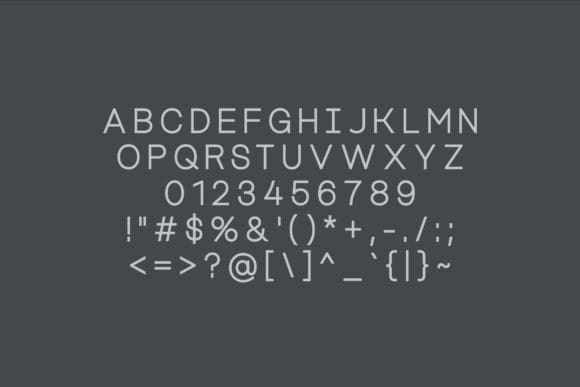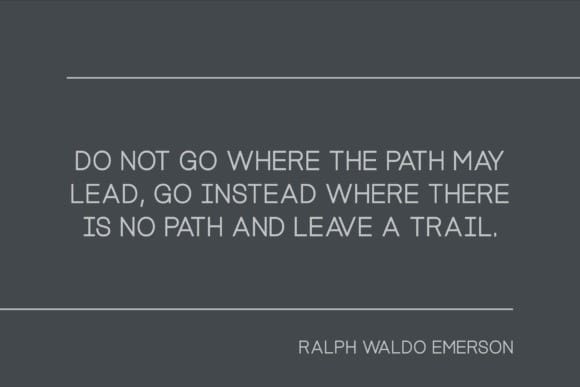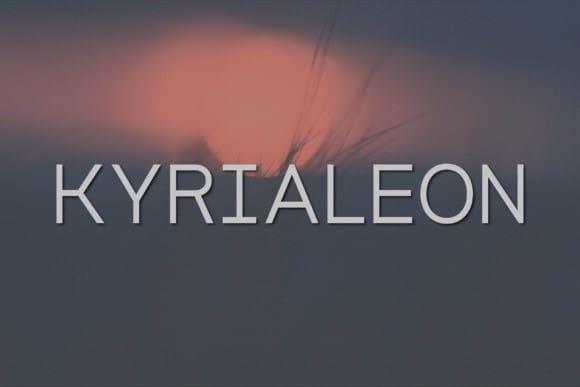
Kyrialeon Font
Kyrialeon Font; the embodiment of contemporary sophistication in the sans serif typeface family. This versatile font ranges from characterful uppers, numerals 0-9, to a variety of expressive punctuation and symbols. Kyrialeon is perfectly tailored to add a touch of elegance to your logos, wedding invites, quotable moments, and advertising efforts. It also makes a standout choice for print materials and magazine layouts, lending a refined visual character that commands attention. Experience the myriad possibilities with Kyrialeon font.